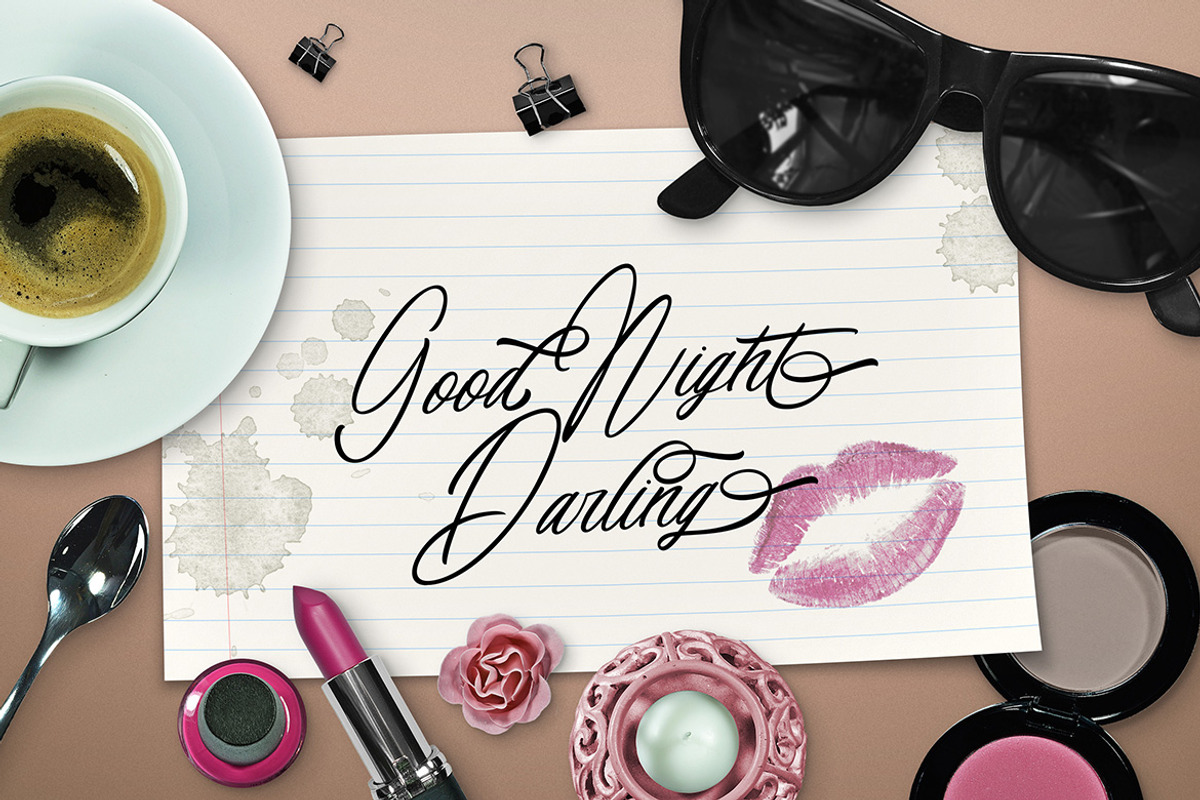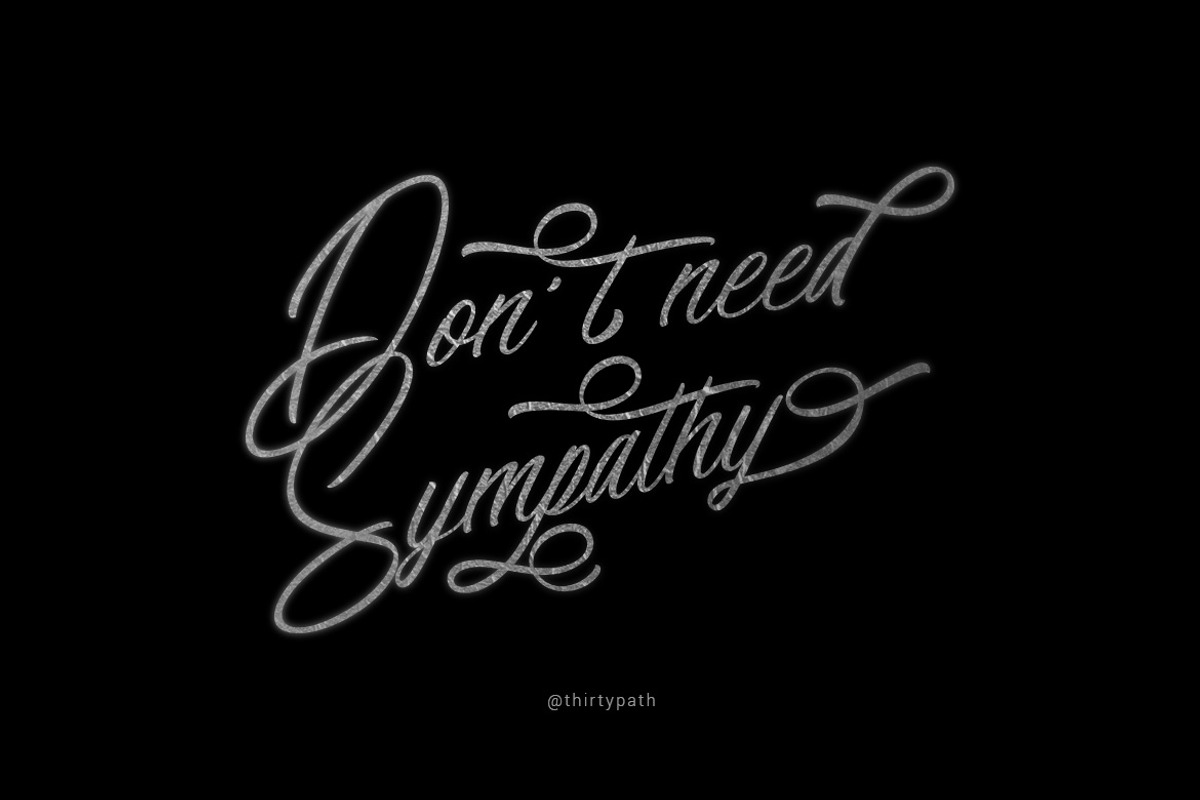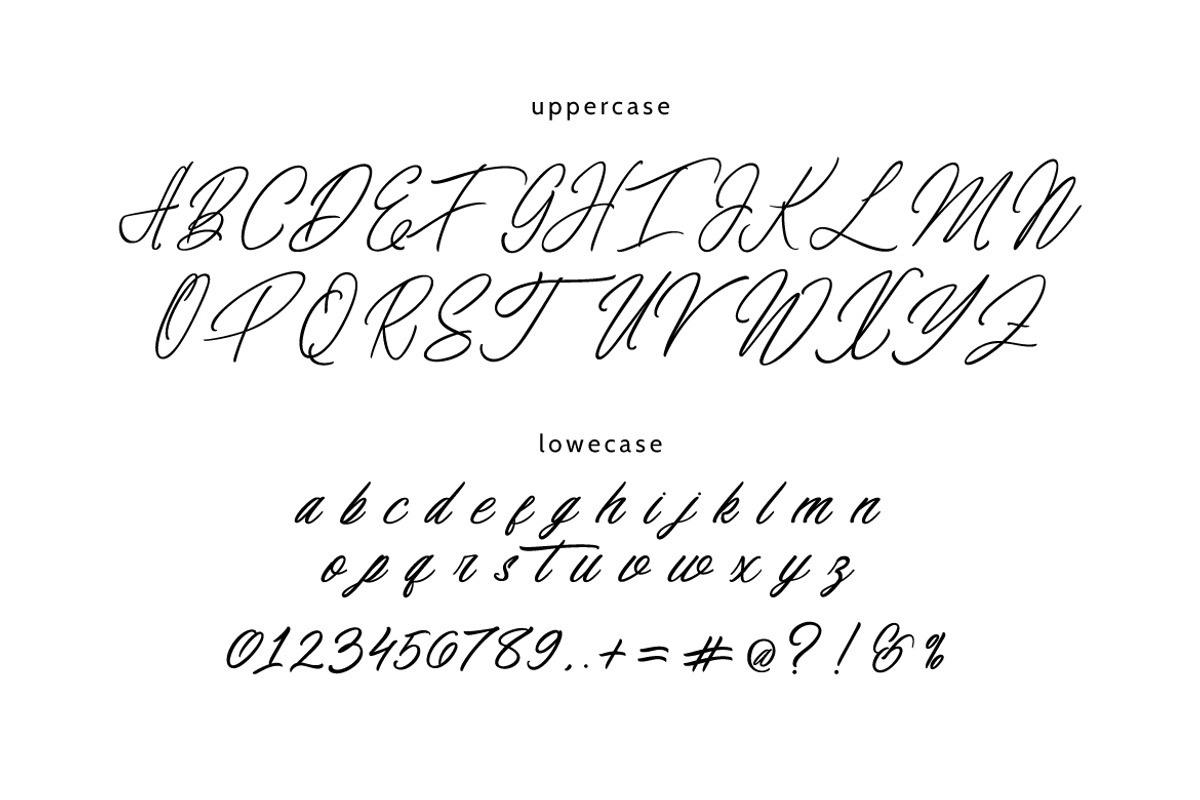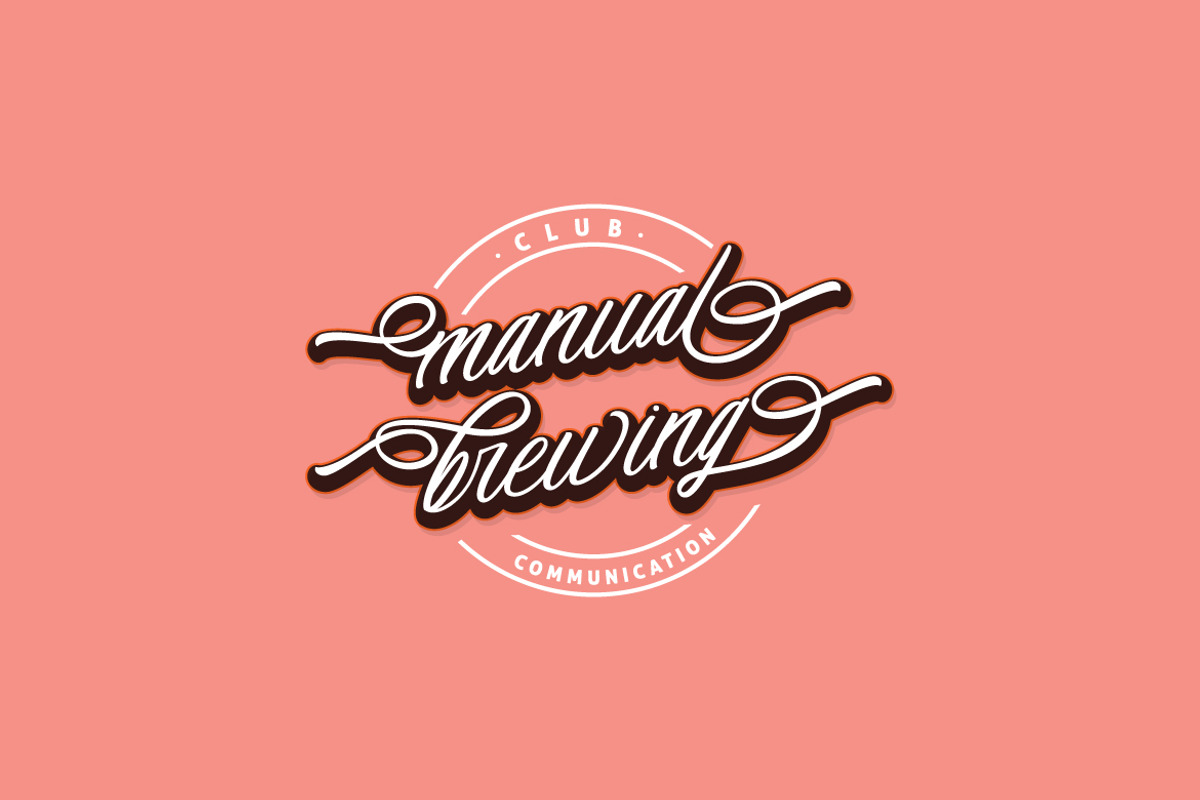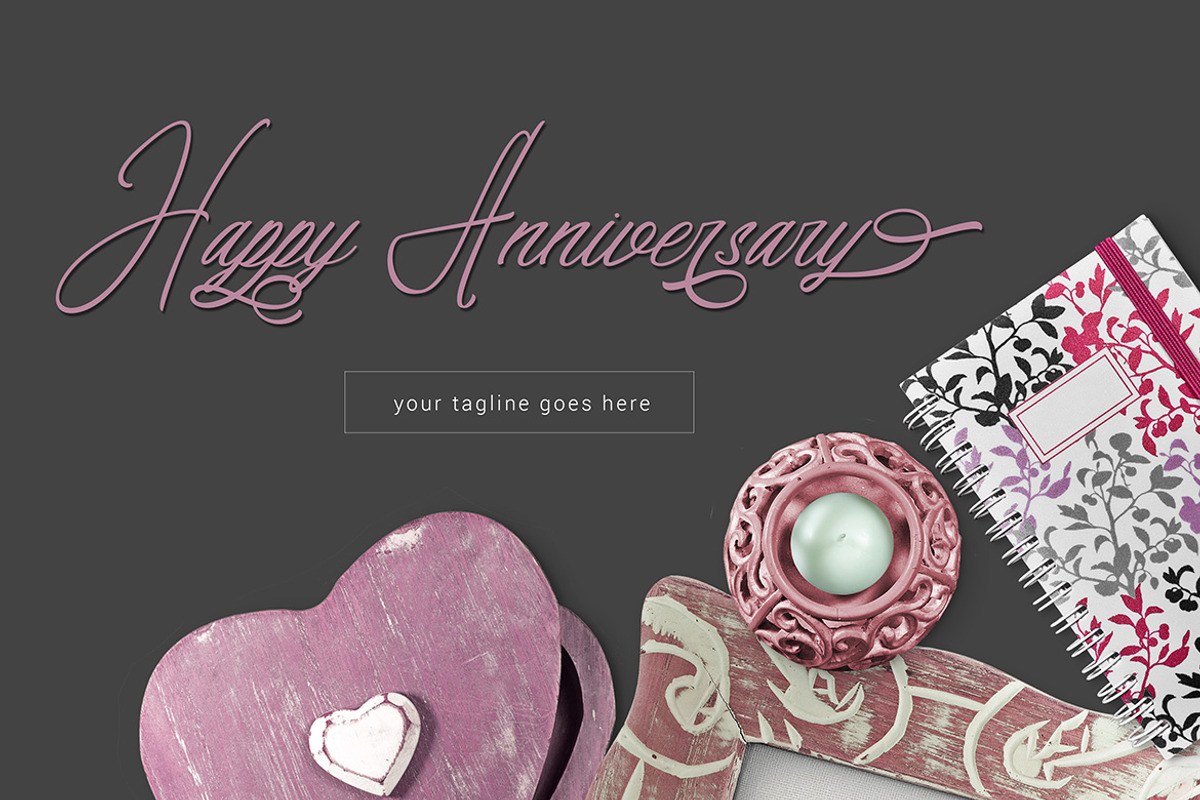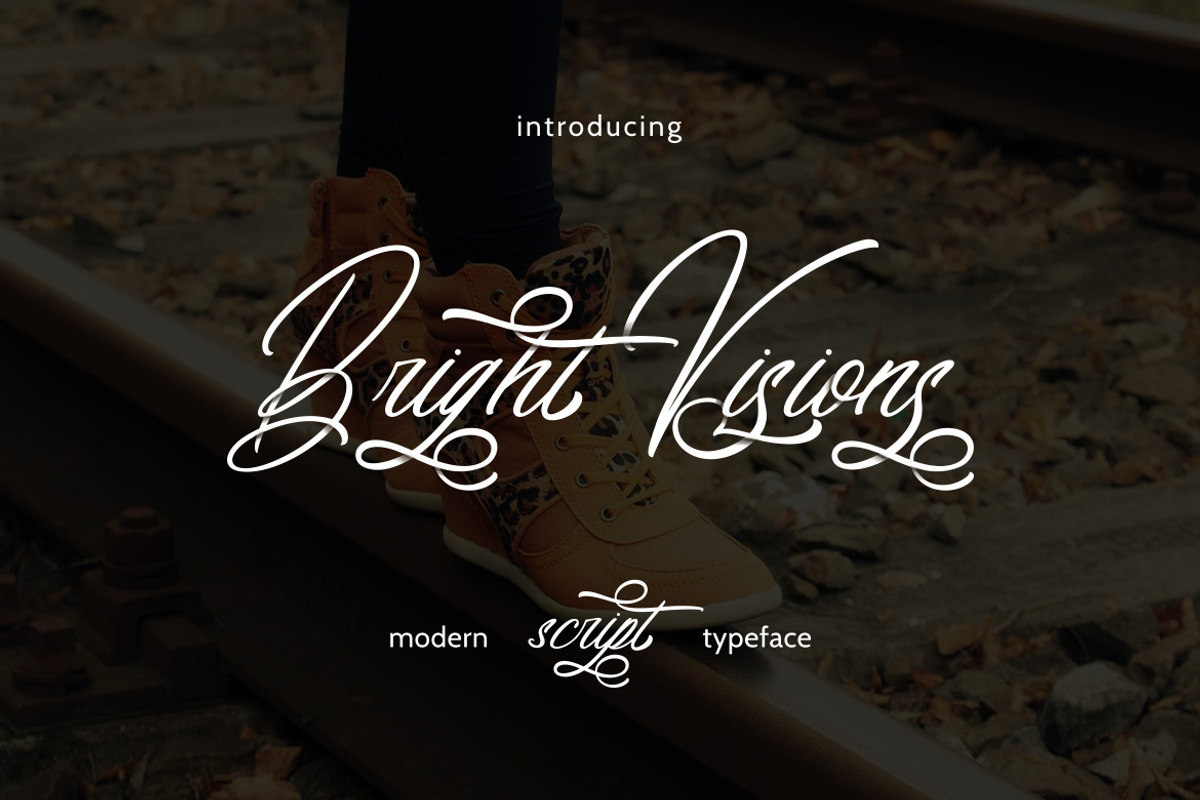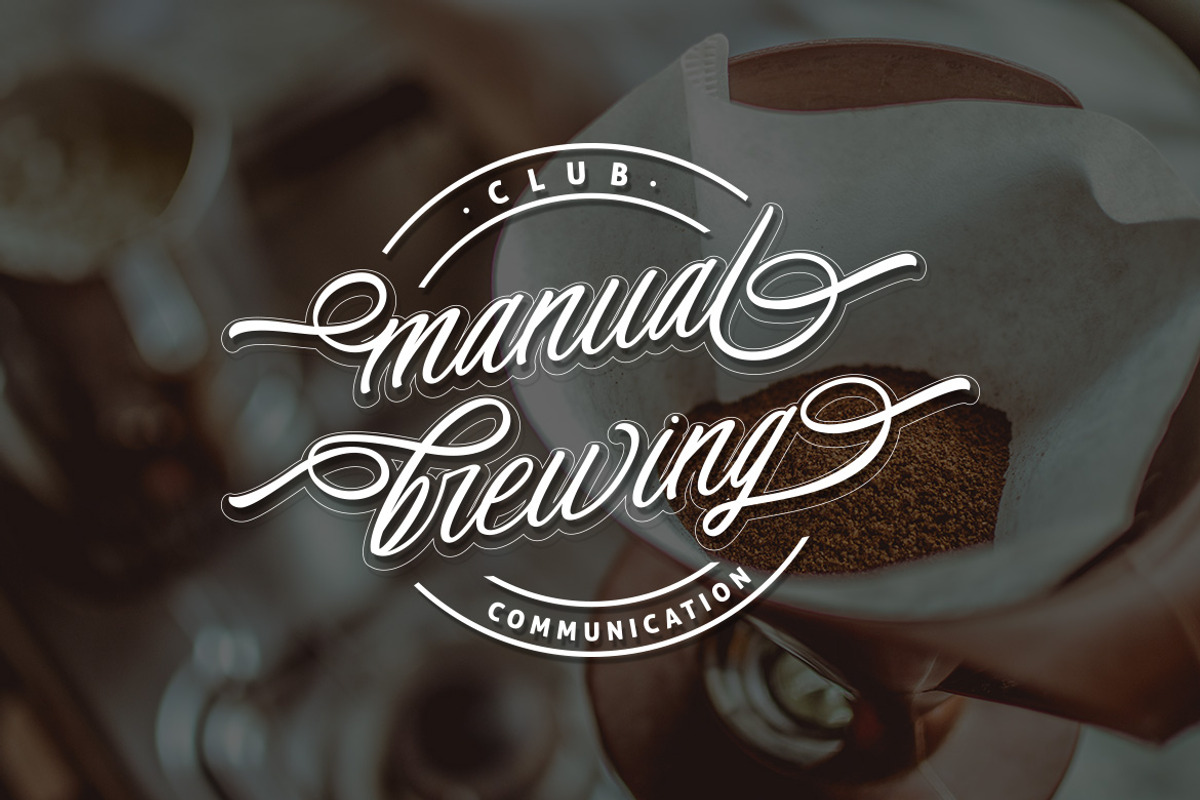
Bright Visions Typeface
Bright Visions Typeface by Thirtypath Studio is a font selected for branding, posters, packaging, typography.
- Uppercase & lowercase
- Stylistic alternatives & swashes
- Initials & finals
- International characters (Multilingual)
- Punctuation & symbols
Why Bright Visions Typeface is worth a look
Bright Visions Typeface by Thirtypath Studio fits naturally into Branding, posters, packaging, typography.